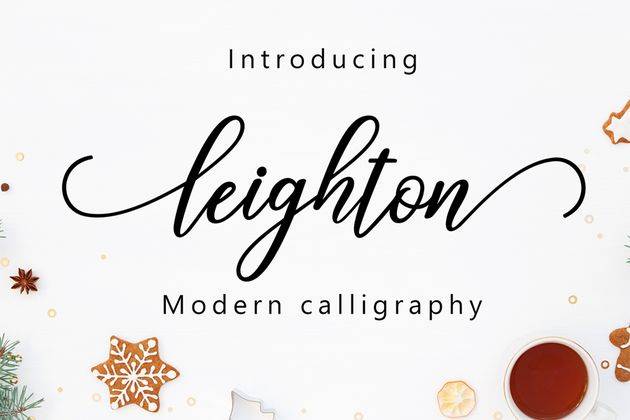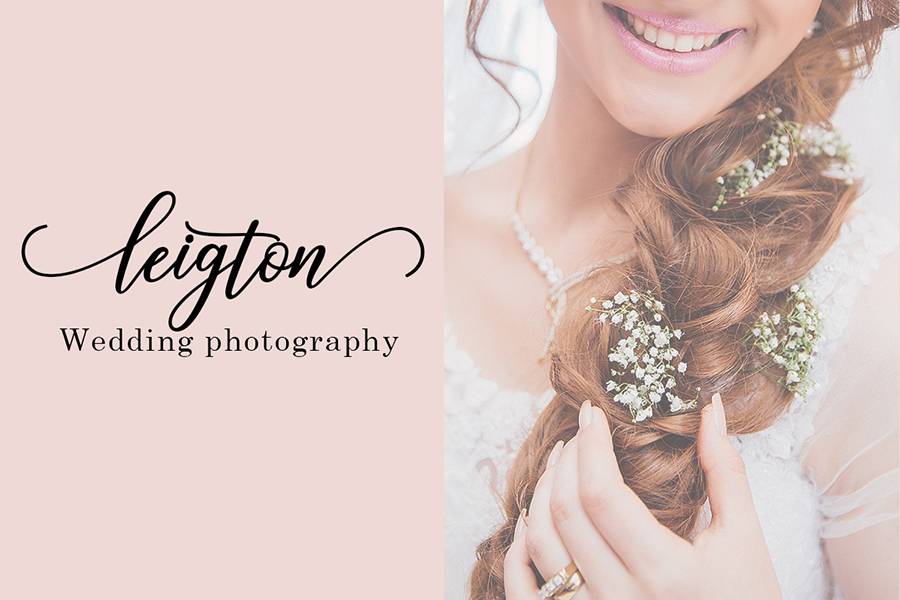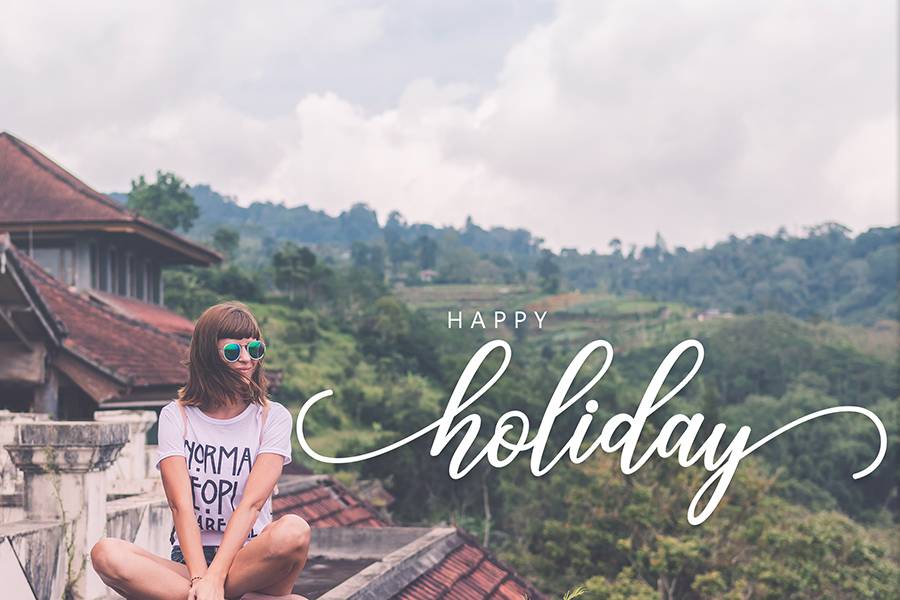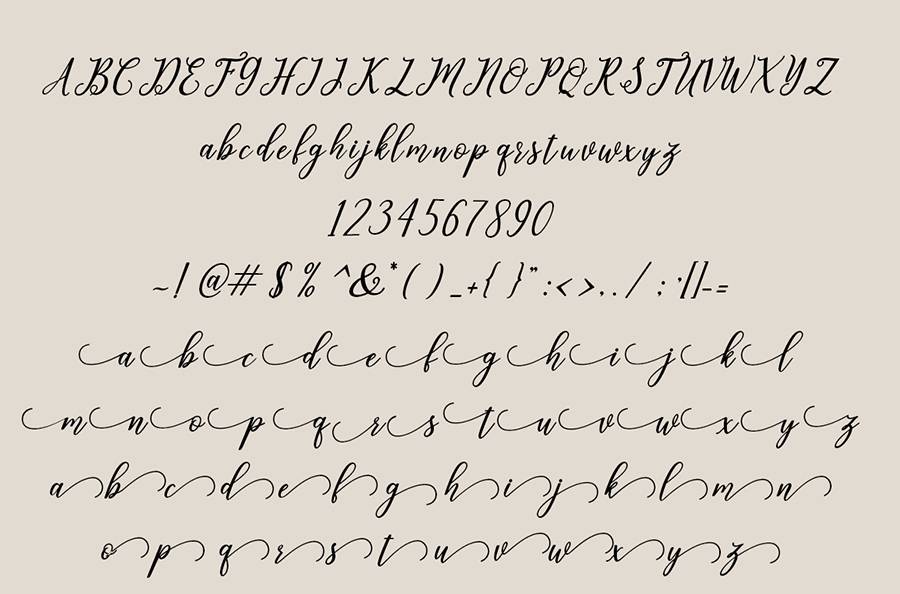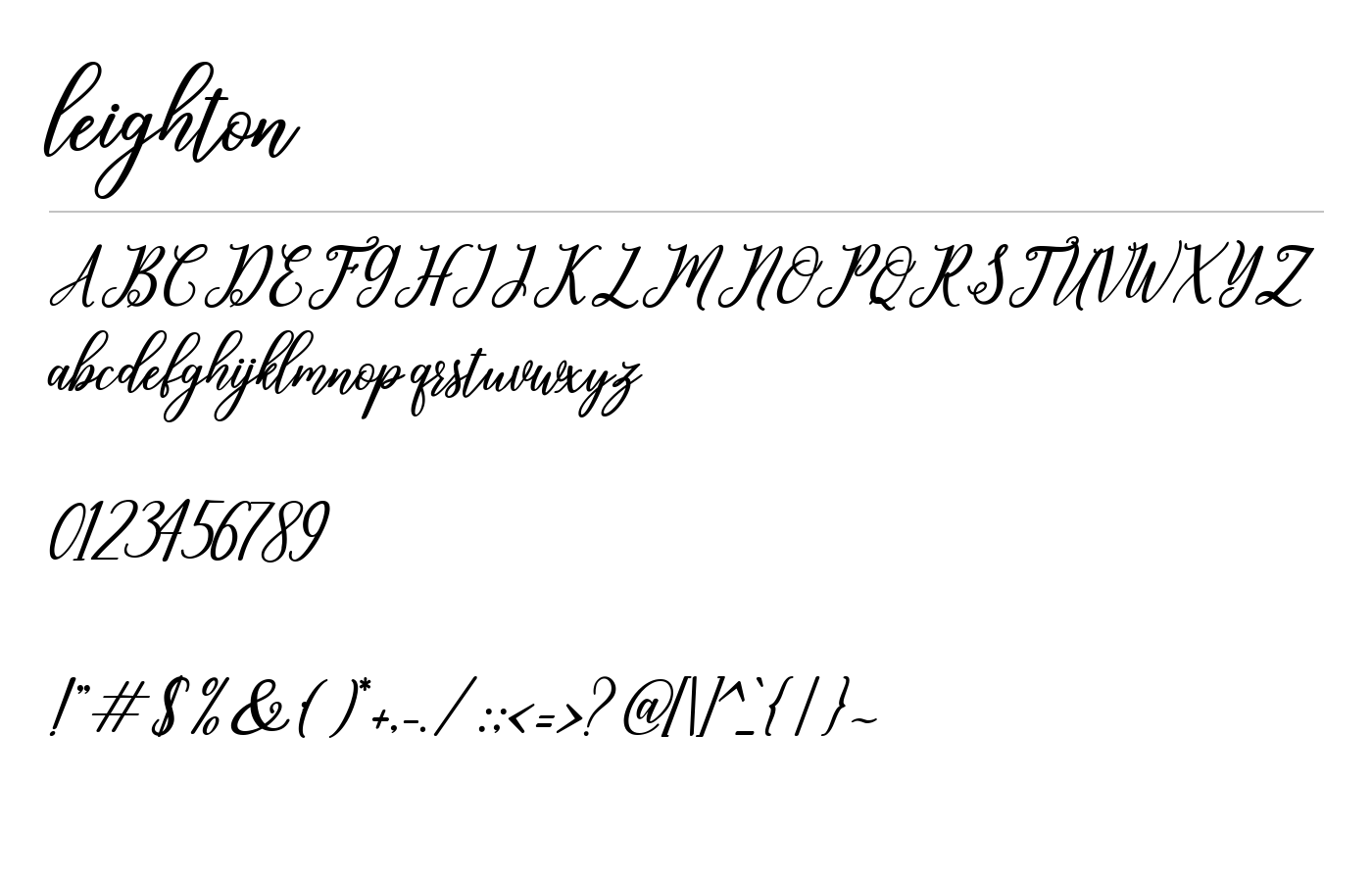
Leighton Handlettering Font is an elegant and flowing script that mimics natural handwriting with a refined, slightly calligraphic touch. Its slender, moderately contrasted strokes and delicate curves give it a graceful, sophisticated feel, making it ideal for invitations, branding, and other designs that require a personal yet stylish flair. This font is perfect for projects seeking a blend of warmth and elegance, especially in luxury, fashion, or creative contexts.
Leighton Handlettering Font
About Leighton Handlettering Font
| Font family | Leighton Handlettering Font |
| Designer | Kamaruddin_Amarlettering |